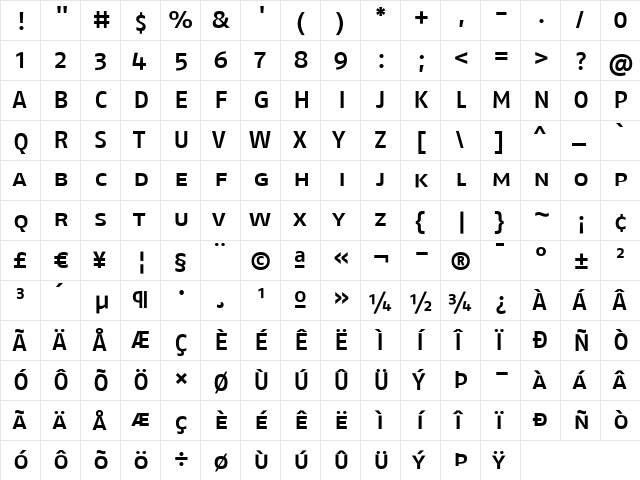
FagoExLf Medium
Design Context for FagoExLf Typeface
FagoExLf offers clean, dependable letterforms without strong stylistic allegiance, making it a practical choice for designers who need flexibility.
Pro Tip: Pair FagoExLf with a font of contrasting weight or personality to build a more expressive typographic hierarchy.